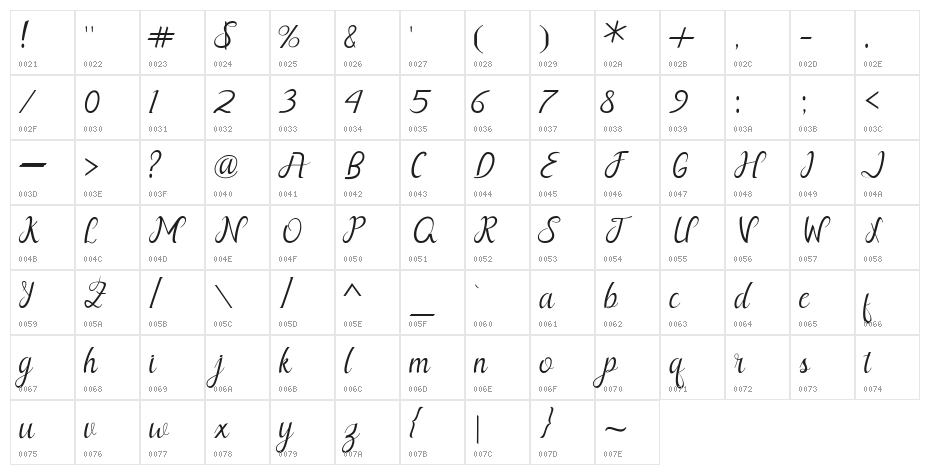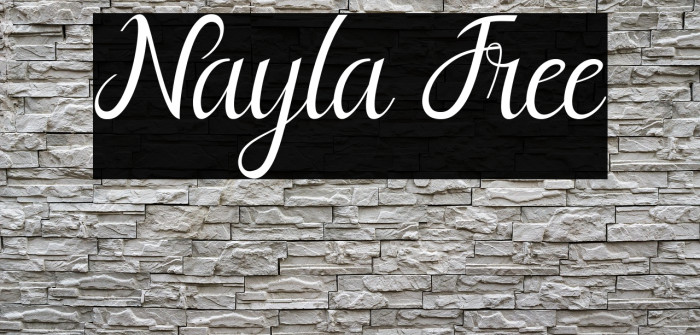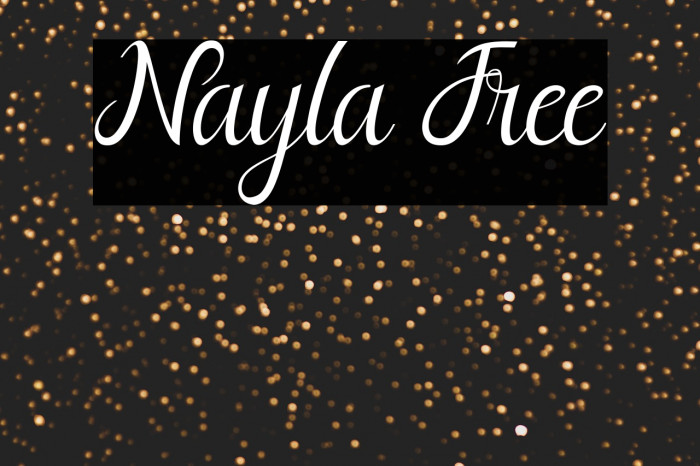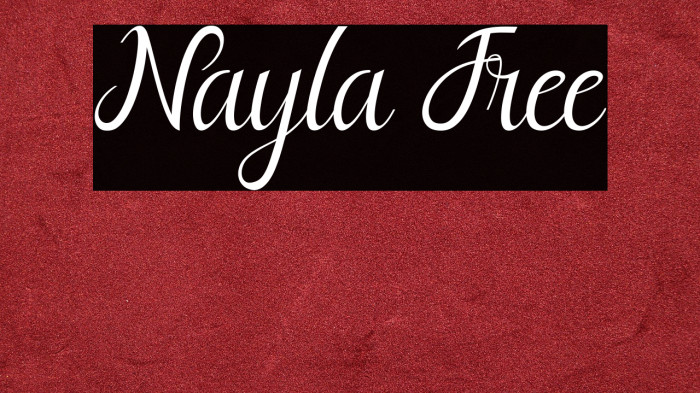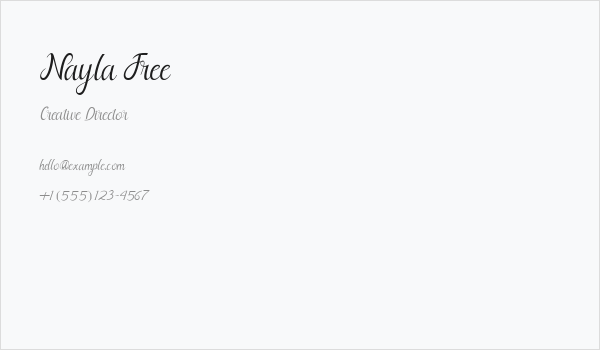
Nayla Free Font
Nayla Free Description
This elegant script font features a flowing, cursive style with a sophisticated flair. The uppercase letters are characterized by graceful loops and swashes, giving them a sense of movement and fluidity. The lowercase letters maintain a consistent slant, enhancing the font's overall harmony and rhythm. Numbers and special characters are designed with the same attention to detail, ensuring a cohesive look across all elements. The font's delicate strokes and high contrast between thick and thin lines add to its refined appearance, making it suitable for formal and decorative purposes.
Overall StyleElegant, Decorative
Use CaseHeadlines, Invitations, Branding
Proposed ProjectsIdeal for wedding invitations, elegant branding, greeting cards, and decorative headlines.